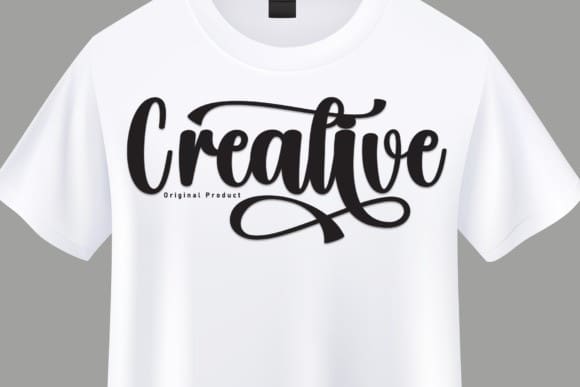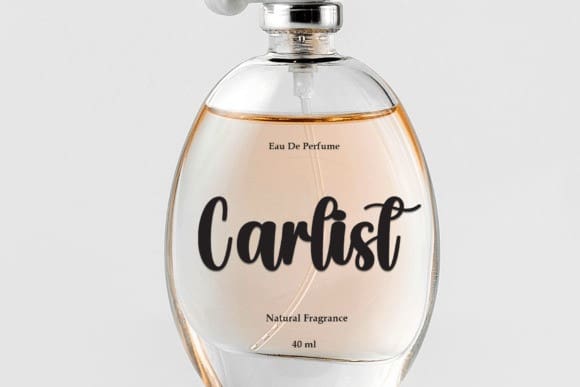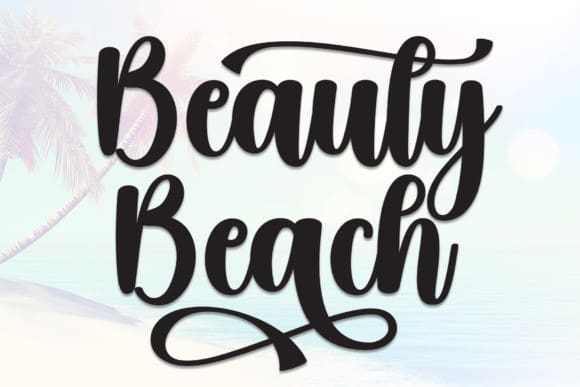
Beauty Beach Font
Beauty Beach Font is a neat and beautiful handwritten font described by an elegant touch, perfect for your favorite projects.
Fall in love with its incredibly distinct and timeless style, and use it to create spectacular designs!